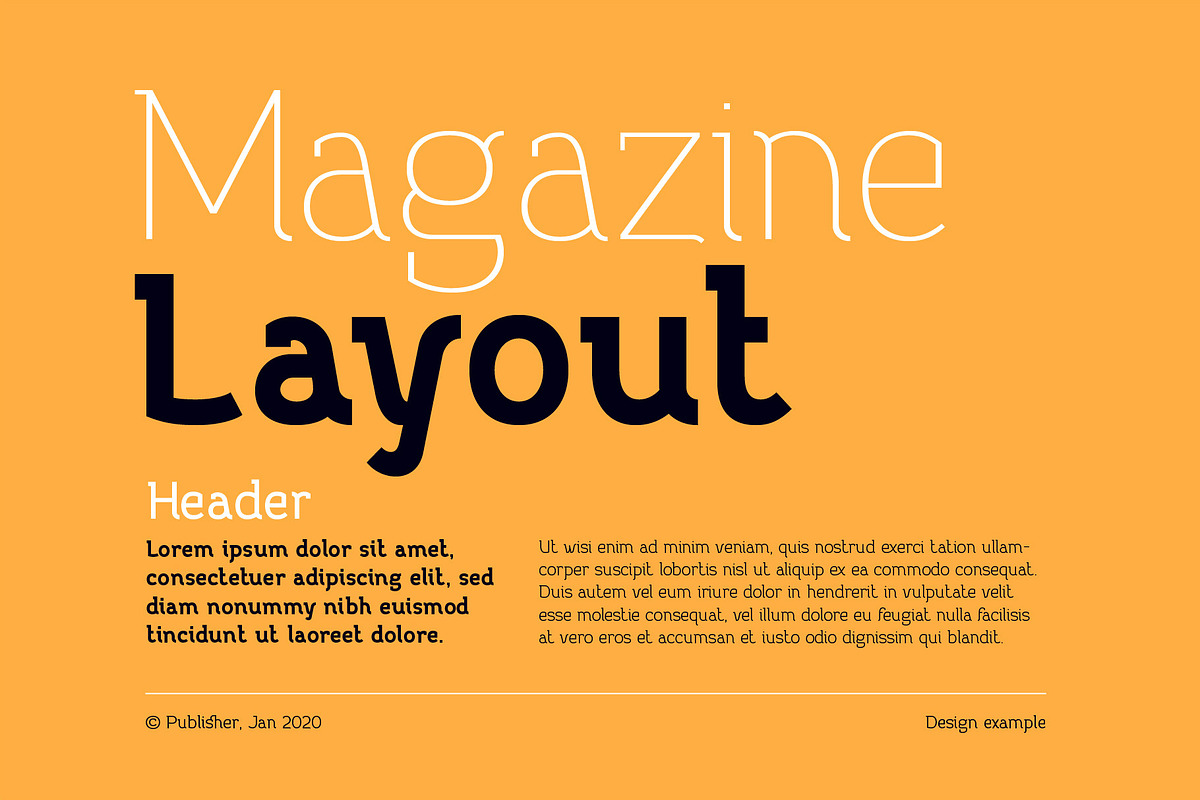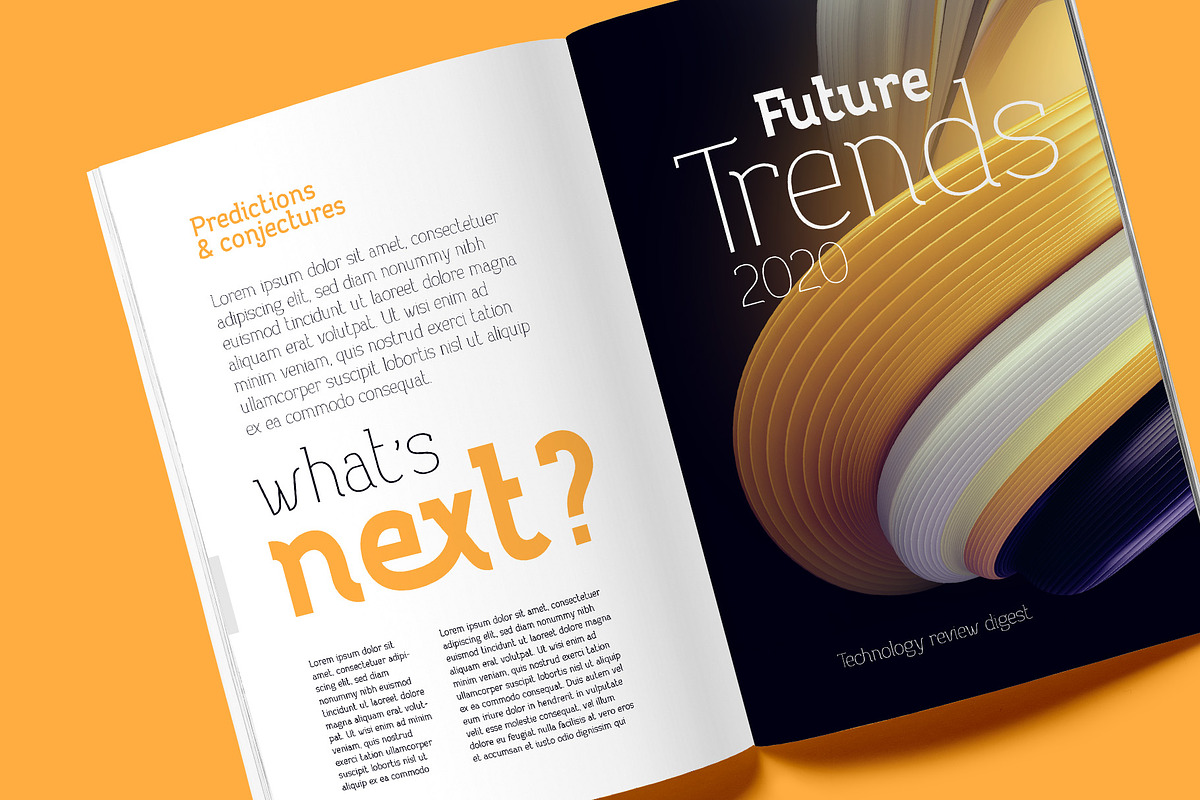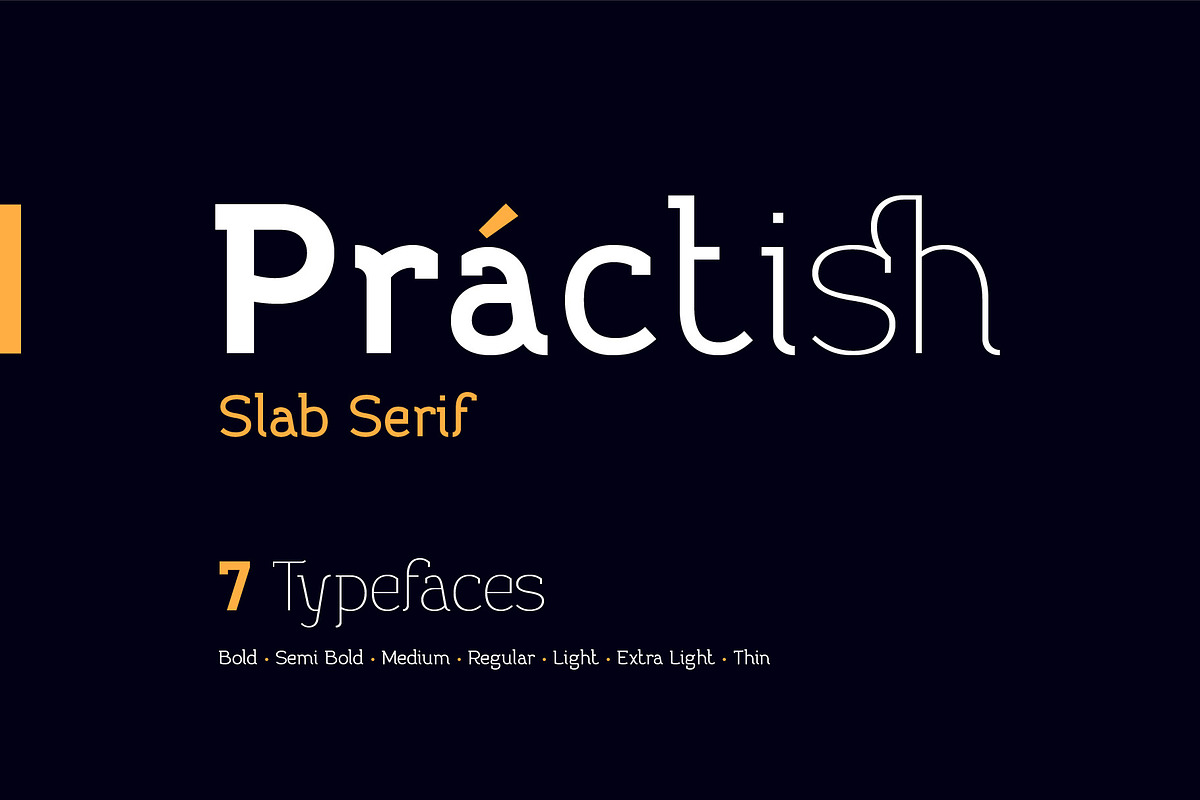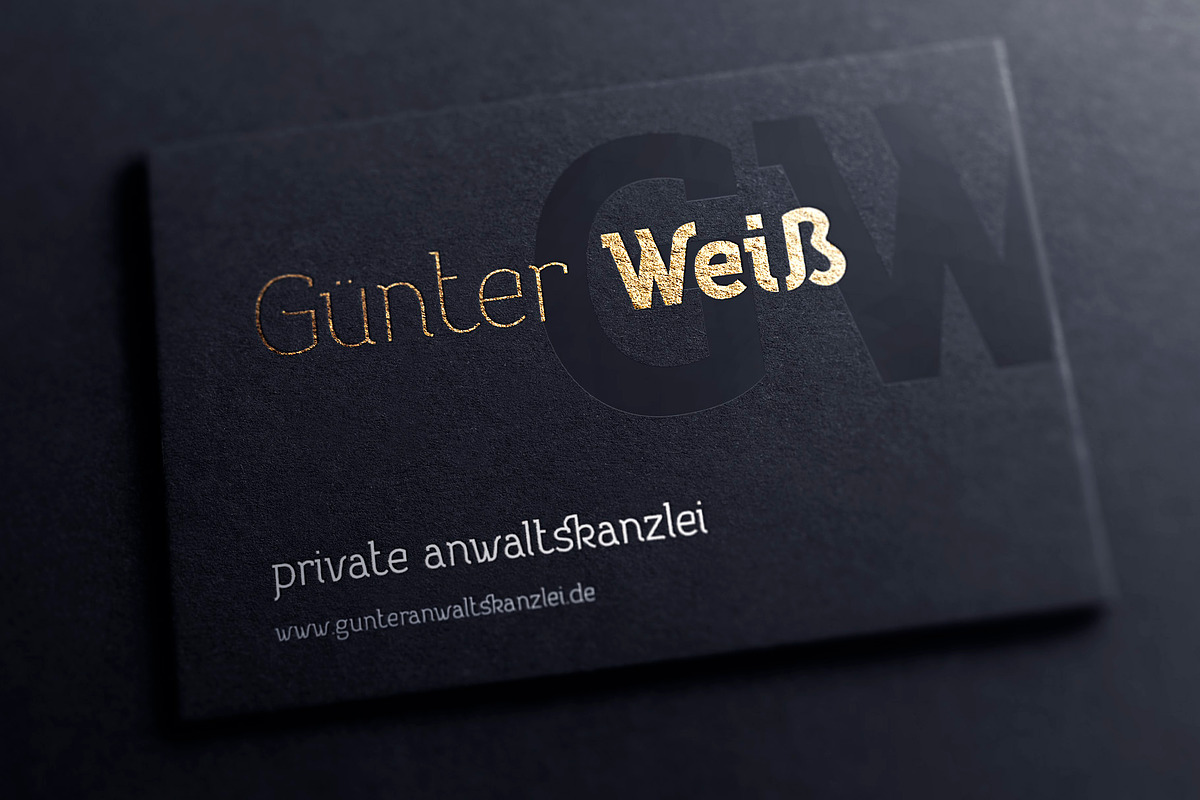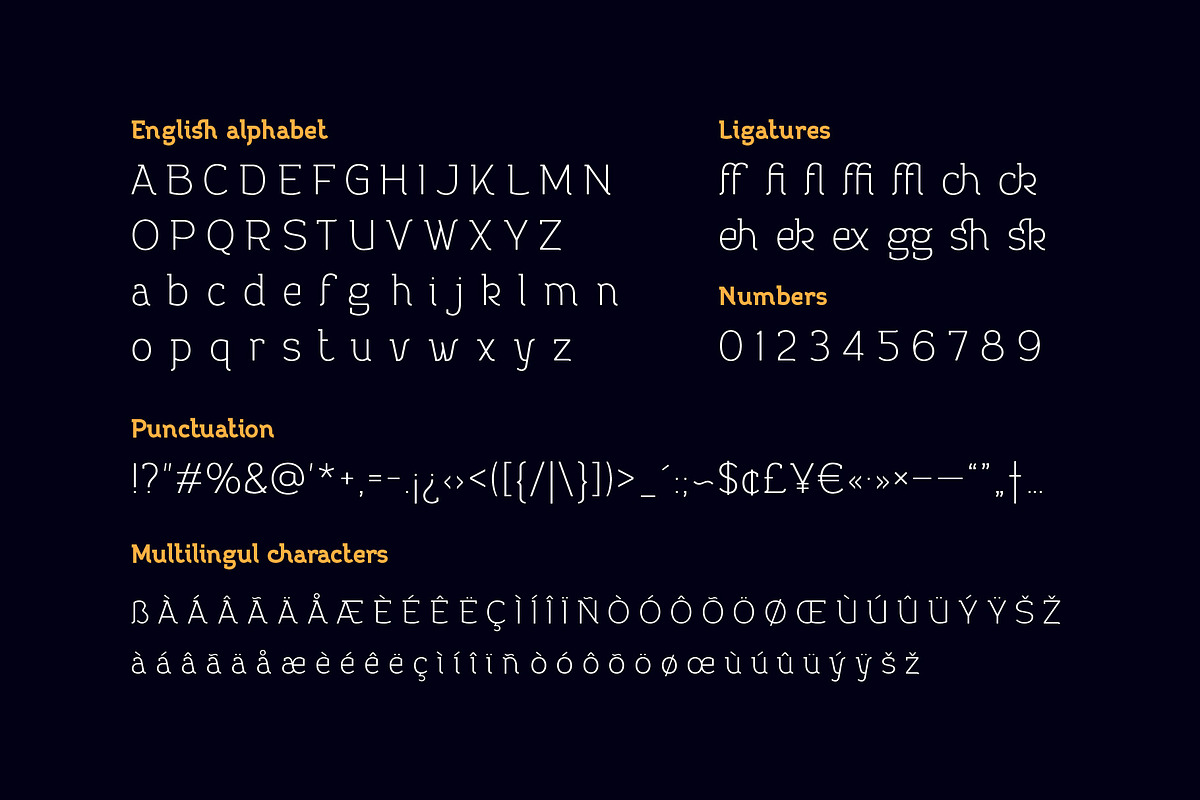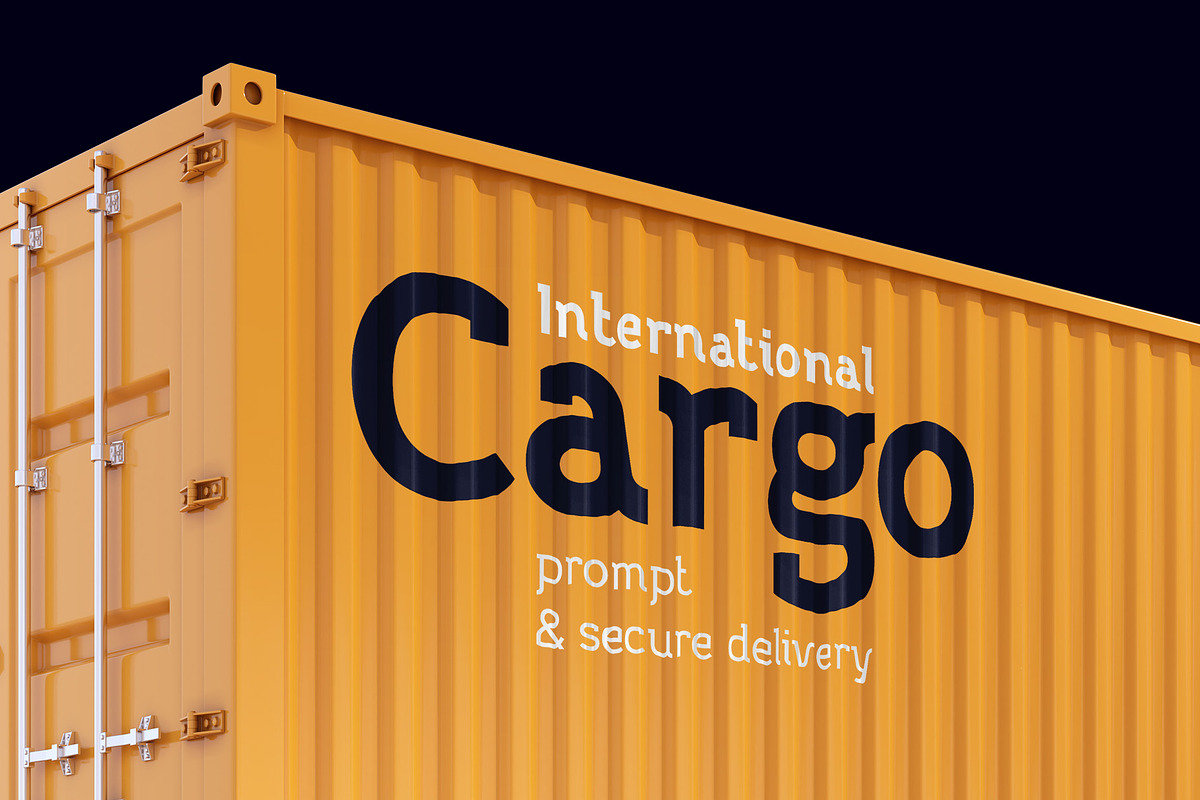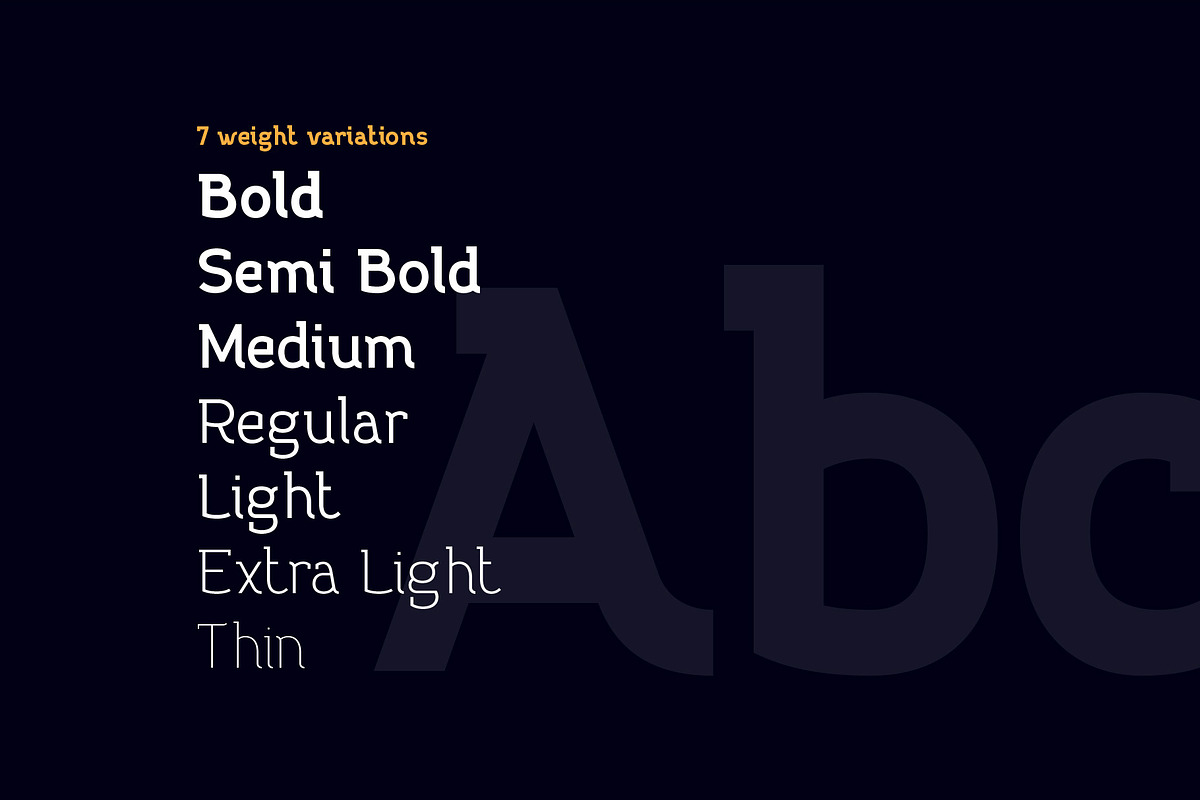
Practish font family
Hello! Introducing a Slab Serif font family named Practish. It's a typefaces set that includes 7 weight variations from Bold to Thin. This font has a strict classic shape and diverce characters thickness makes it useful in lots of cases at any sizes, from visit card to billboard. Practish font family has also a multilingual support of west european languages and 13 ligatures.
- It's a typefaces set that includes 7 weight variations from Bold to Thin.
- This font has a strict classic shape and diverce characters thickness makes it useful in lots of cases at any sizes, from visit card to bill
- Practish font family has also a multilingual support of west european languages and 13 ligatures.
Why Practish font family is worth a look
Practish font family by Gleb Guralnyk fits naturally into Branding, posters, packaging, typography.